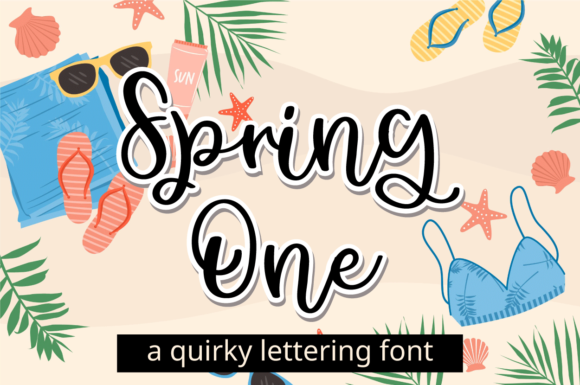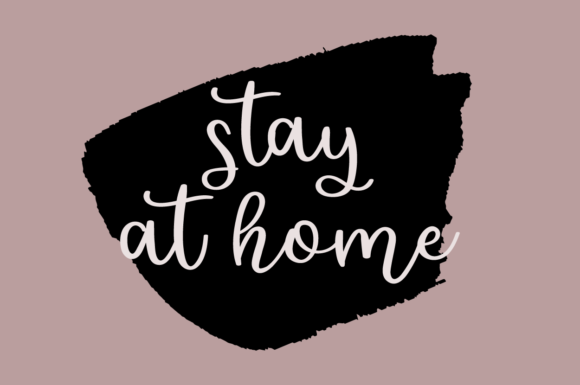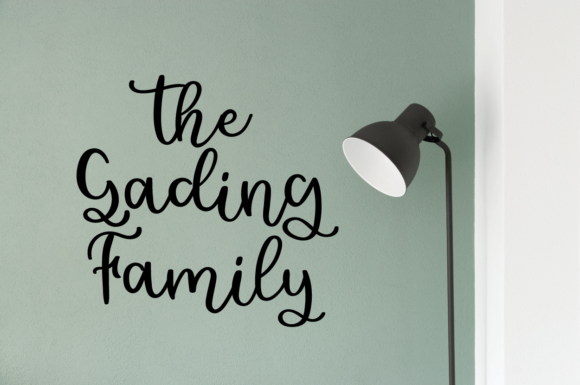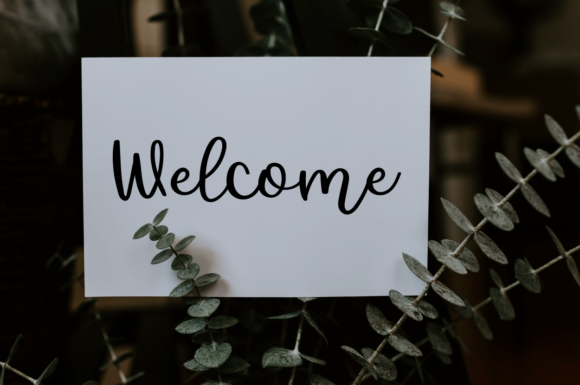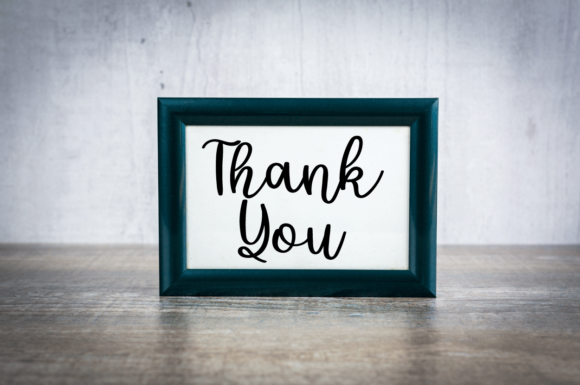
About Spring One Font
Spring One is a unique and elegant handwritten font. It looks beautiful on a variety of designs requiring a personalized style, such as wedding invitations, thank you cards, weddings, greeting cards, logos and so on.